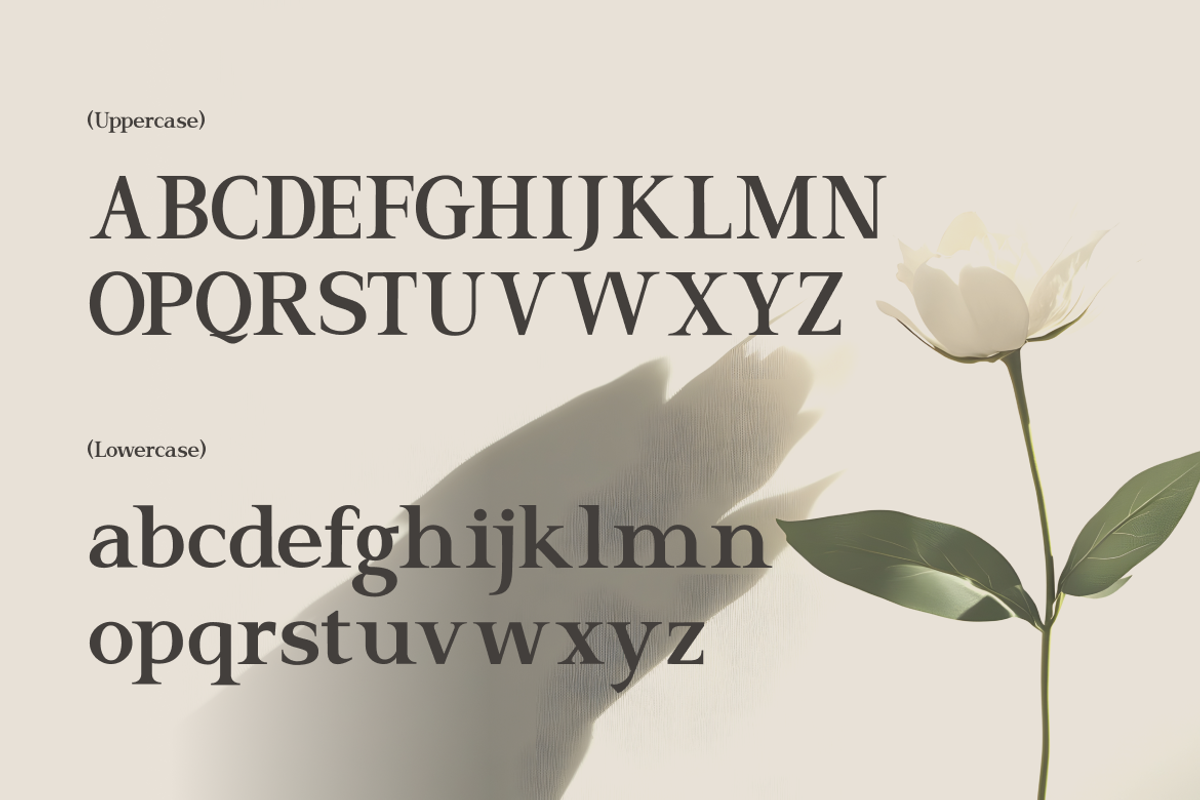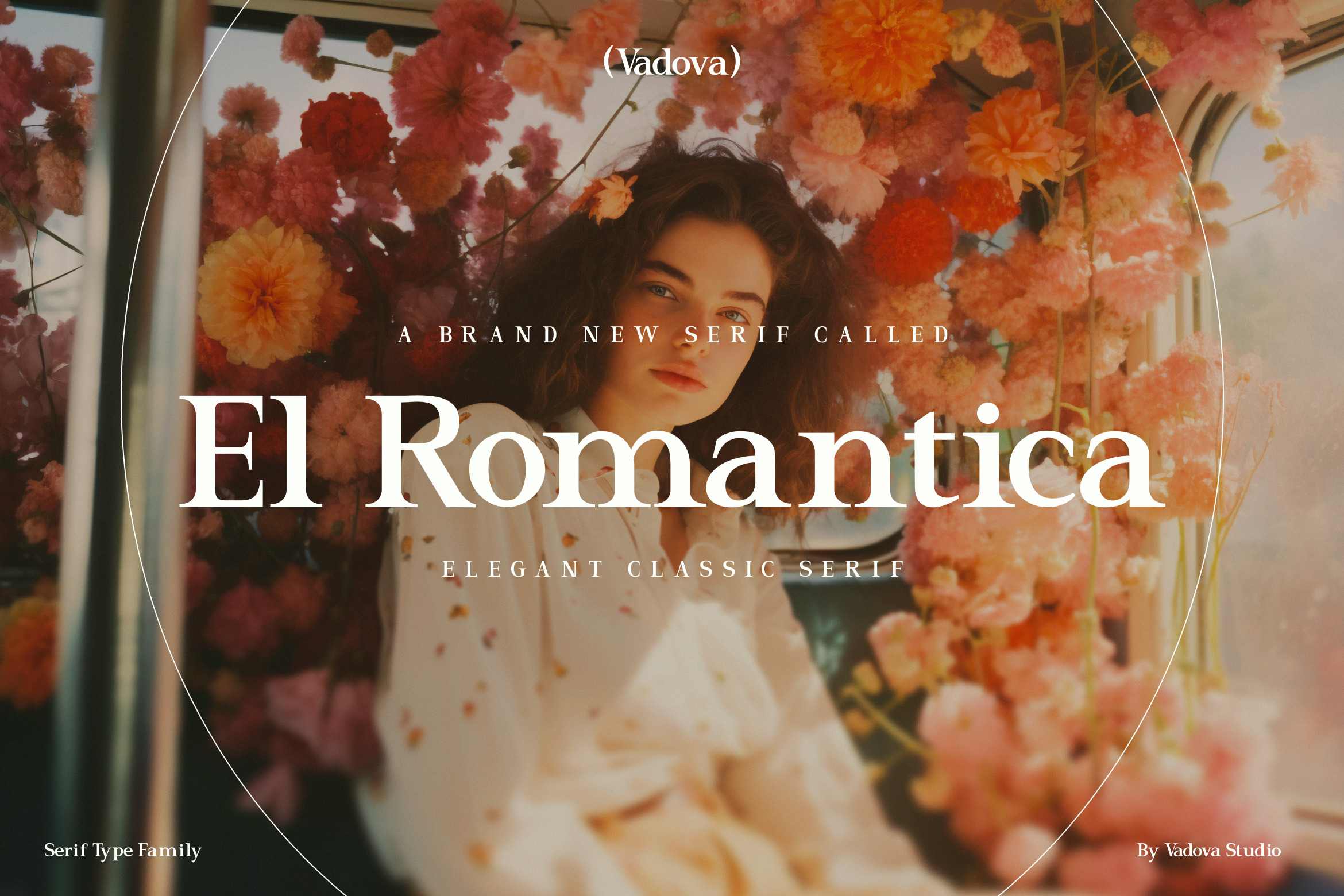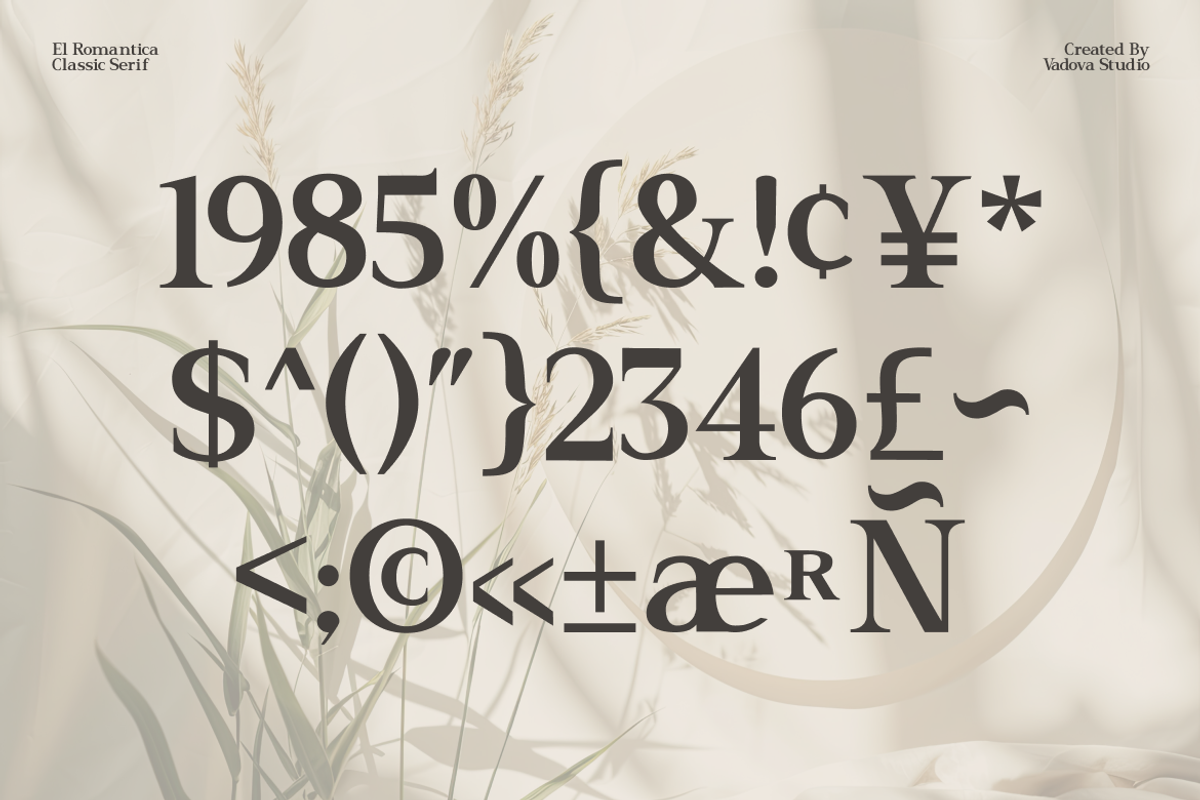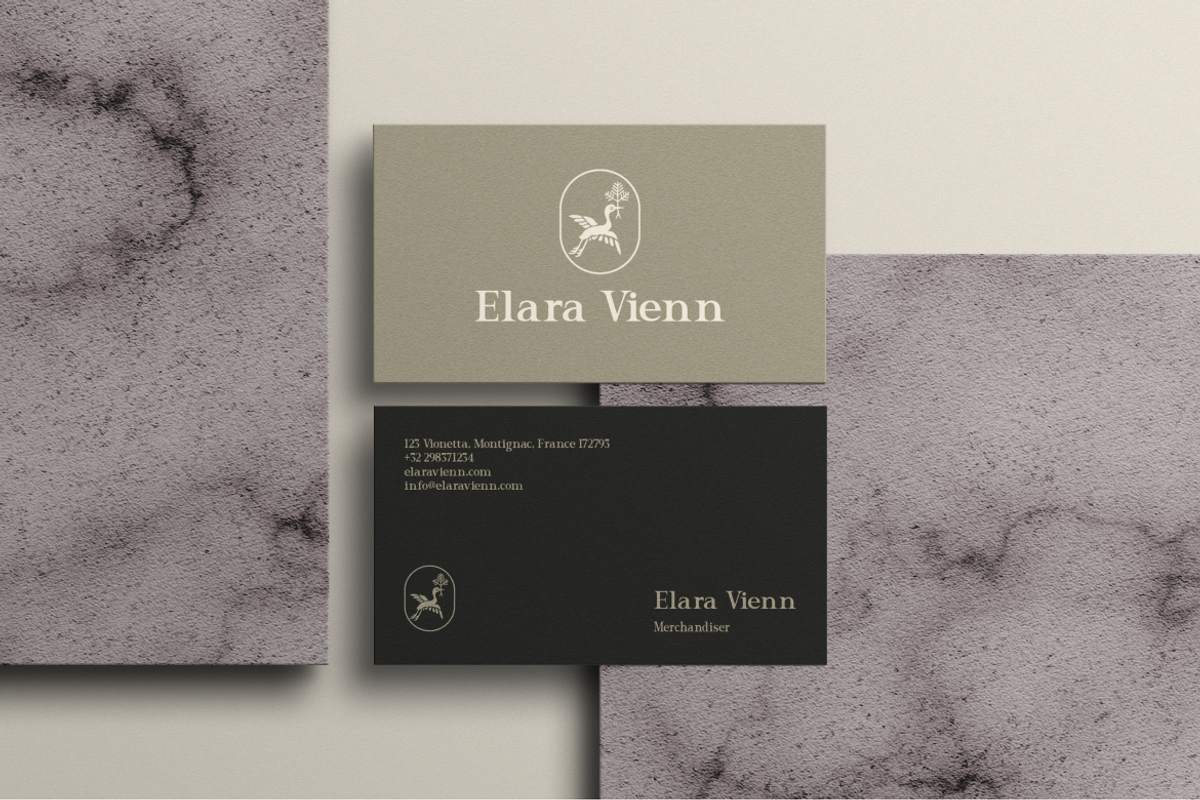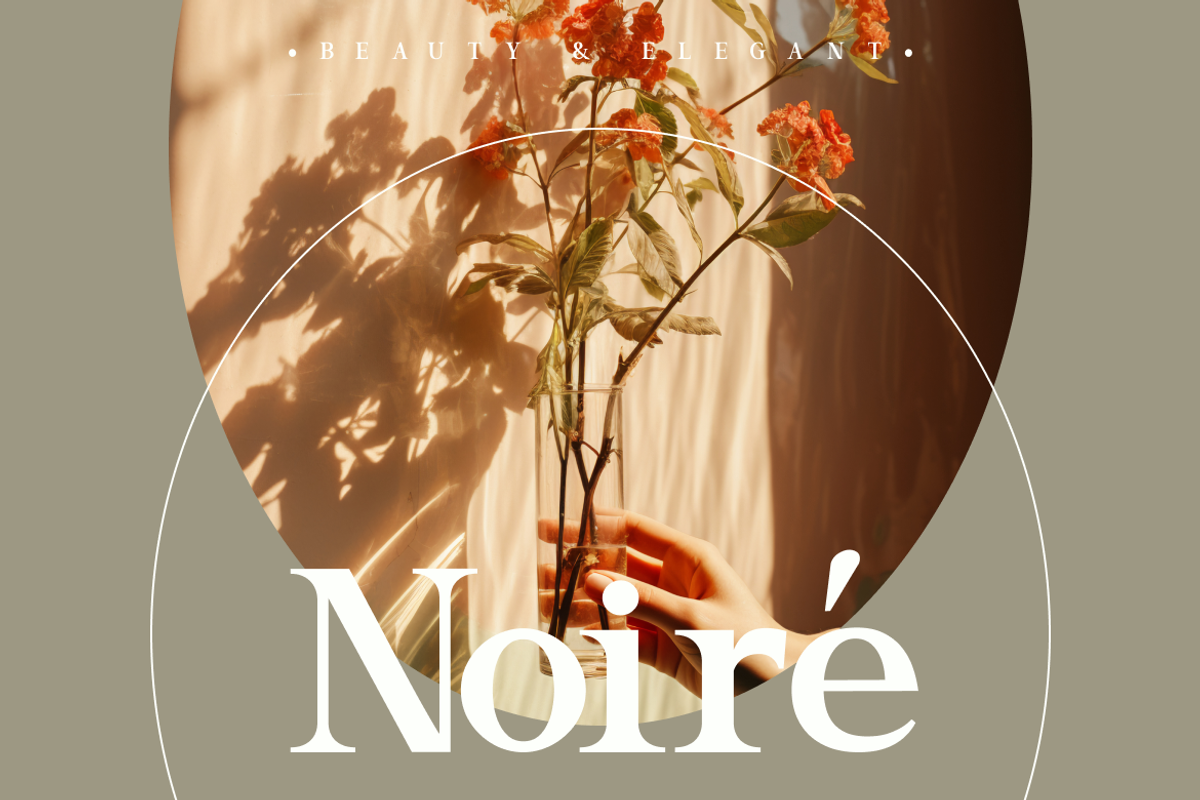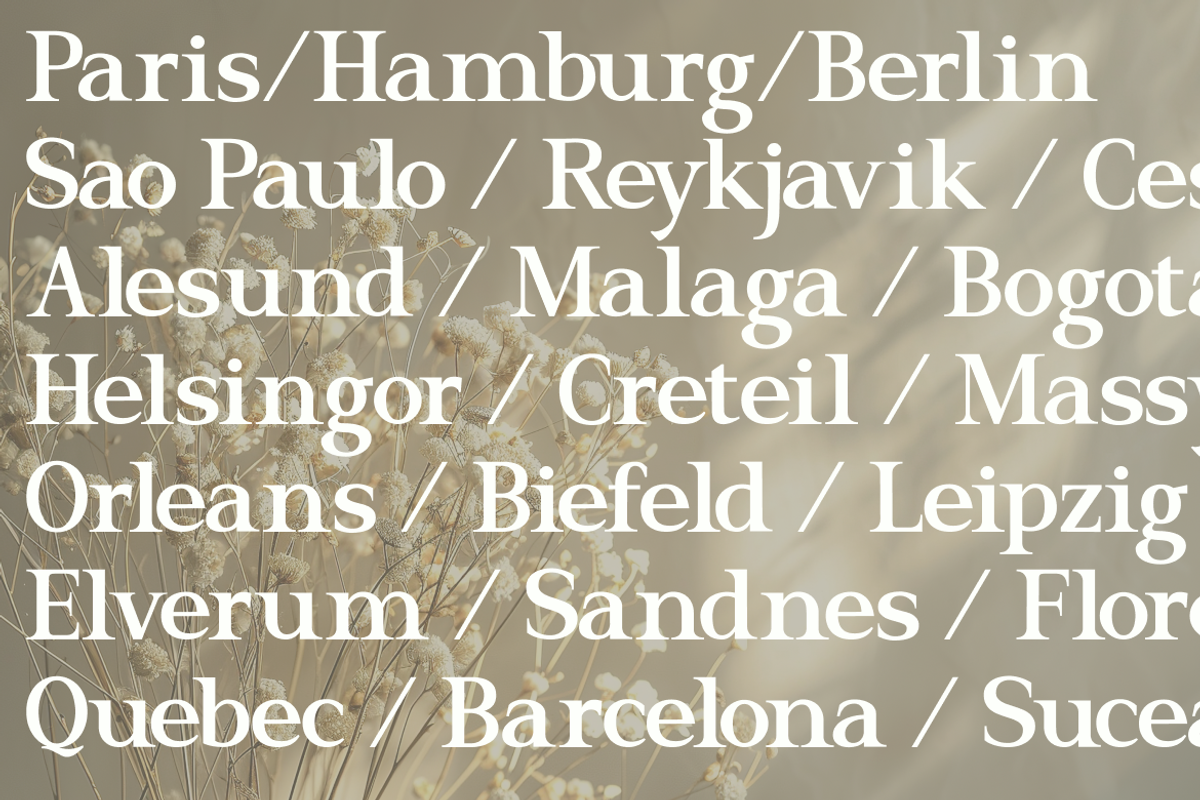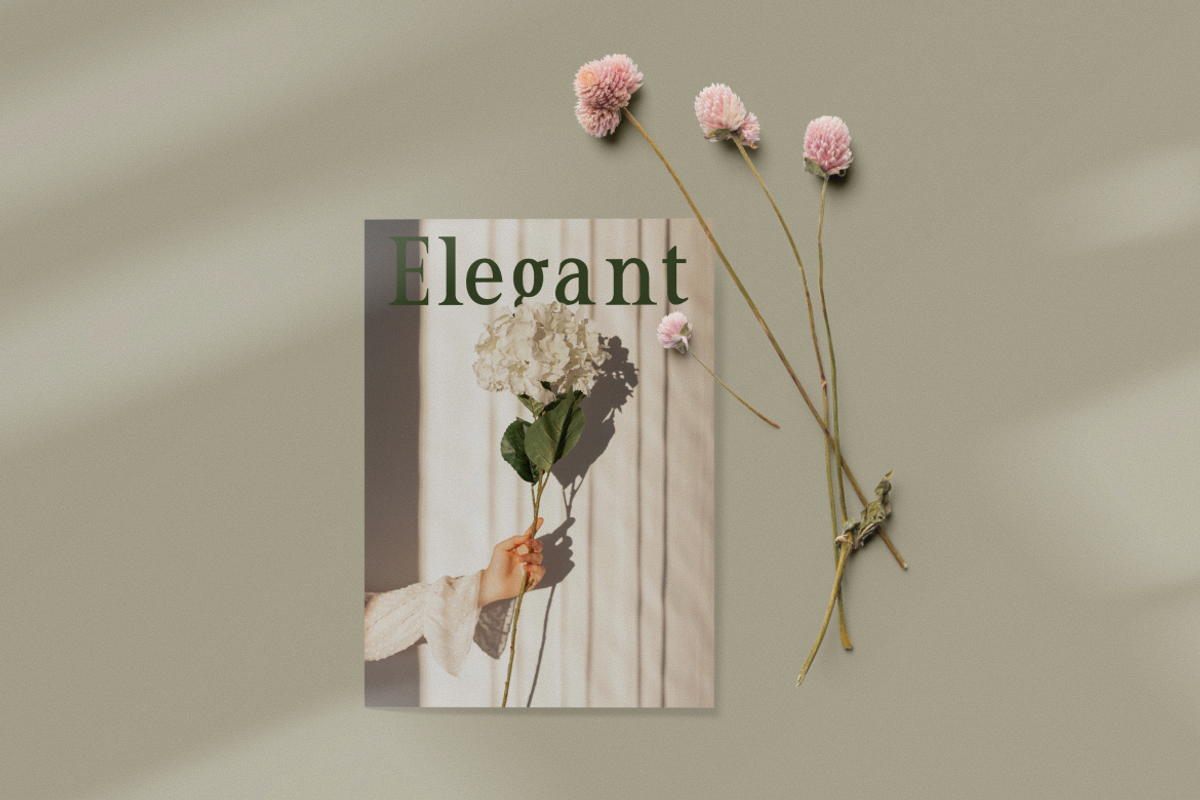
El Romantica Elegant Serif Font
El Romantica is a timeless and sophisticated serif typeface that combines classic typographic beauty with modern refinement. Featuring gracefully tapered strokes, delicate serifs, and a harmonious rhythm, this font brings a refined elegance to any design context. Its carefully balanced letterforms enhance both display and longer text use, making El Romantica suitable for high‑end editorial layouts, fashion branding, luxury packaging, invitations, and artistic digital or print projects.
The font includes a complete set of uppercase and lowercase characters, numerals, punctuation, and essential symbols all crafted with precision to maintain visual integrity at various sizes. With subtle contrast between thick and thin strokes and well‑proportioned spacing, El Romantica conveys sophistication without sacrificing readability.
- Classic serif structure with moderated contrast for elegance
- Graceful curves and tapered strokes for refined visual flow
- Balanced proportions and gentle serif details enhance readability
- Harmonious rhythm suited for headlines and extended text alike
- Luxury and fashion brand identity systems
- Artistic posters, book covers, and gallery collateral
- Elegant social media templates and lifestyle graphics
- Premium packaging and label typography
- Wedding and event invitation designs
Let elegance lead the story with El Romantica